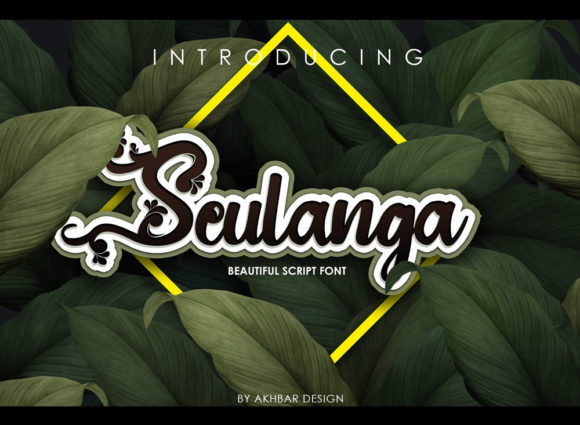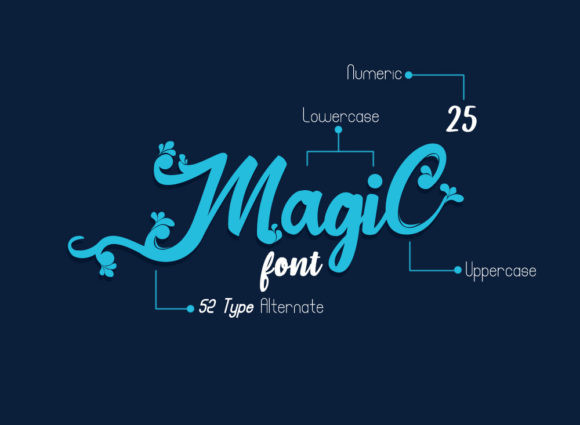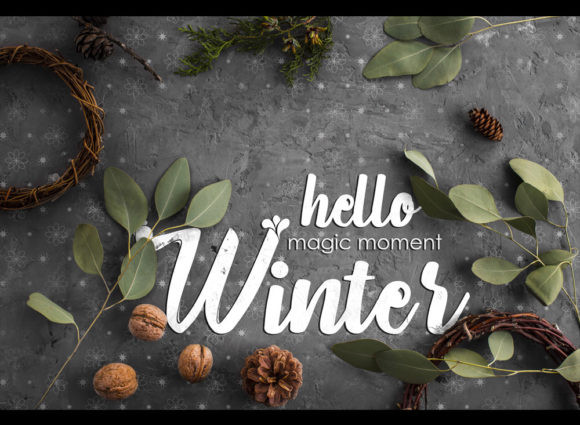
Seulanga Font
Seulanga is a script font inspired by beautiful flowers originating in Indonesia named Aceh. This script font has a beautiful, elegant and luxurious feel, that will work well with a wide variety of design ideas!.